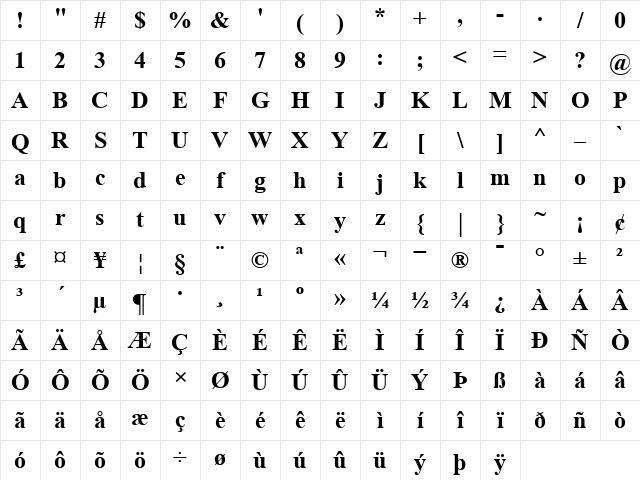
TimesNewRomanPS BoldMT
Style: BoldMT
Complete TimesNewRomanPS BoldMT glyph index. Displaying only characters natively supported by TimesNewRomanPS BoldMT font.
Design Context for TimesNewRomanPS
TimesNewRomanPS is a composed and adaptable typeface that performs quietly and consistently across a wide range of design contexts. Its bold stroke weight gives it real presence on the page.
Pro Tip: Use TimesNewRomanPS in both headline and body roles to test its range before committing to a single application.